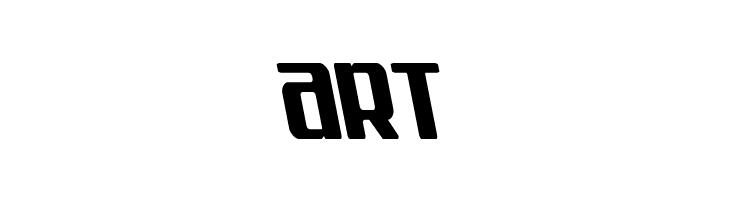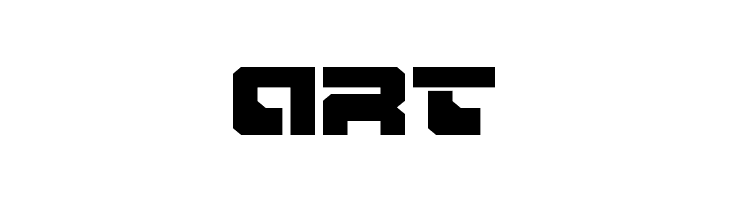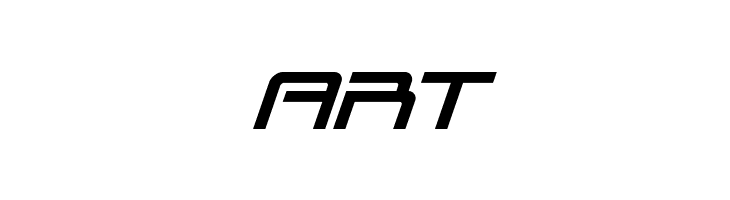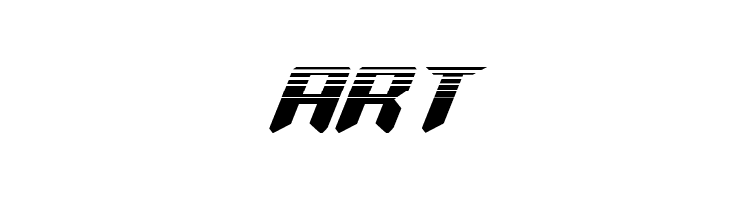
A bold, angular, and expanded italic font with a futuristic style.
A modern, italicized font with a halftone effect and dynamic style.
A bold, semi-italic font with a modern, dynamic style and tight spacing.
A bold, condensed, and italicized font with a dynamic and futuristic style.
A bold, italicized font with a halftone effect, perfect for modern and dynamic designs.
A bold, geometric font with an expanded, futuristic style.
A sleek, futuristic italic font with angular lines and a modern aesthetic.
A bold, geometric font with an expanded, futuristic style.
A bold, striped, three-dimensional italic font with a futuristic and dynamic style.
A futuristic, angular font with a halftone pattern and slanted, dynamic letterforms.